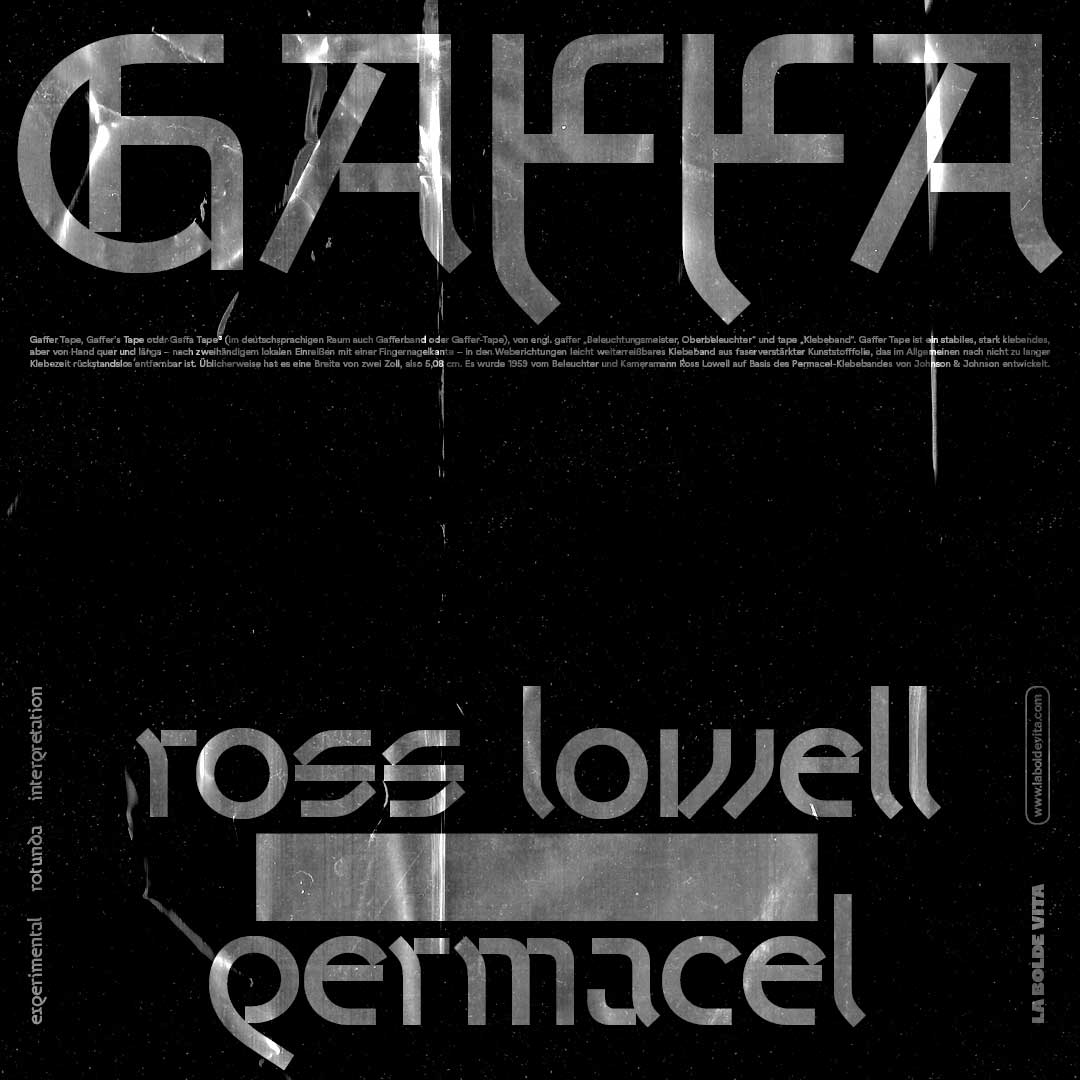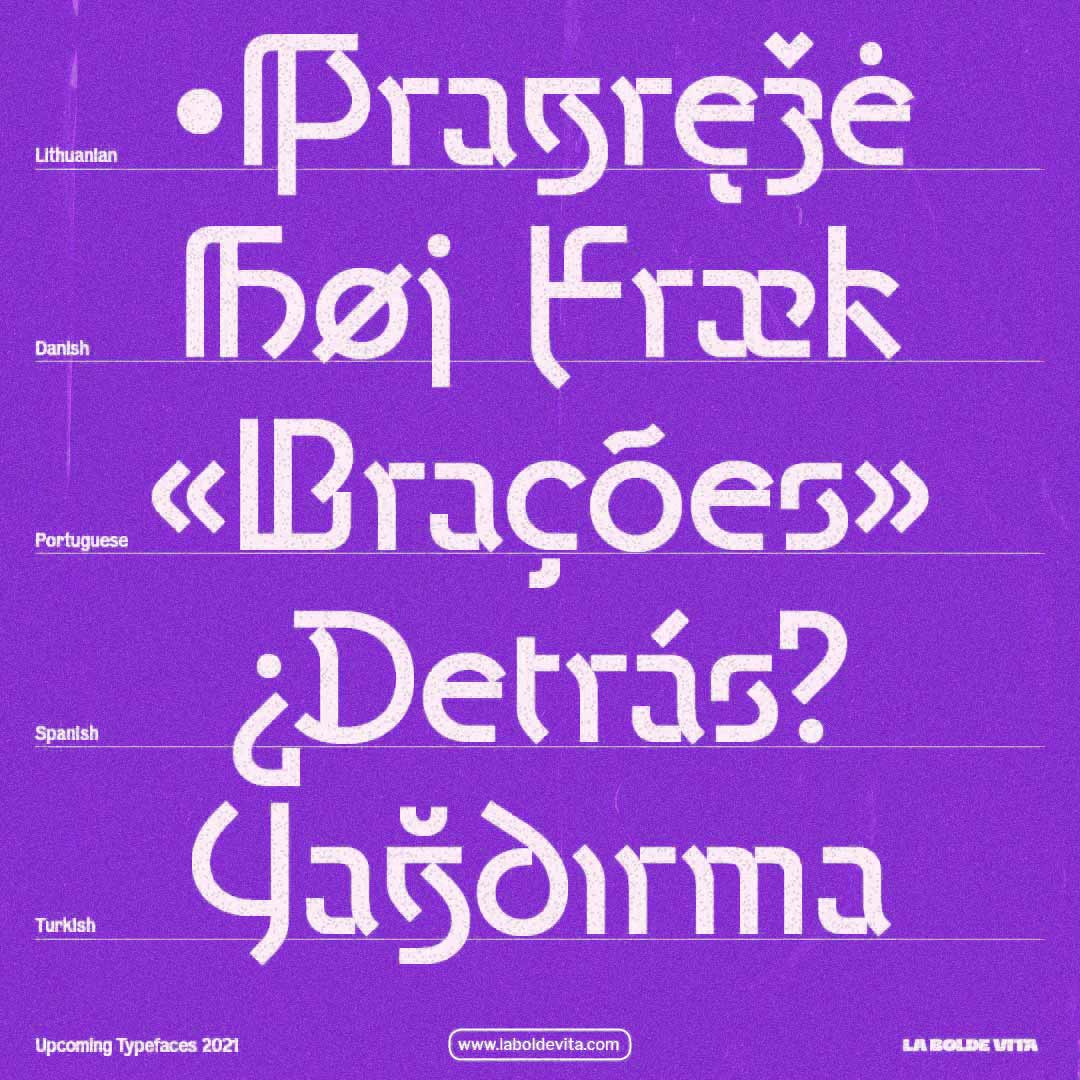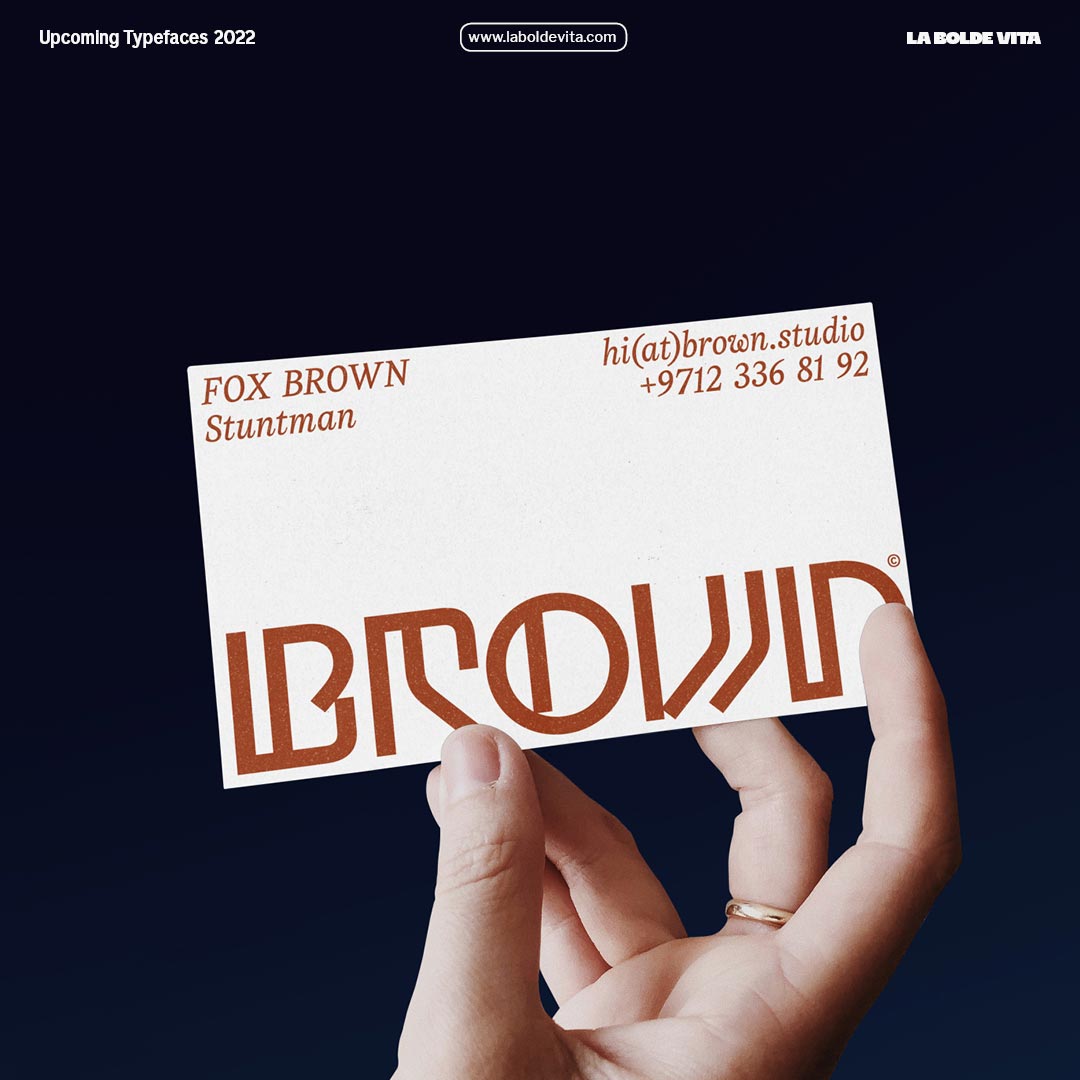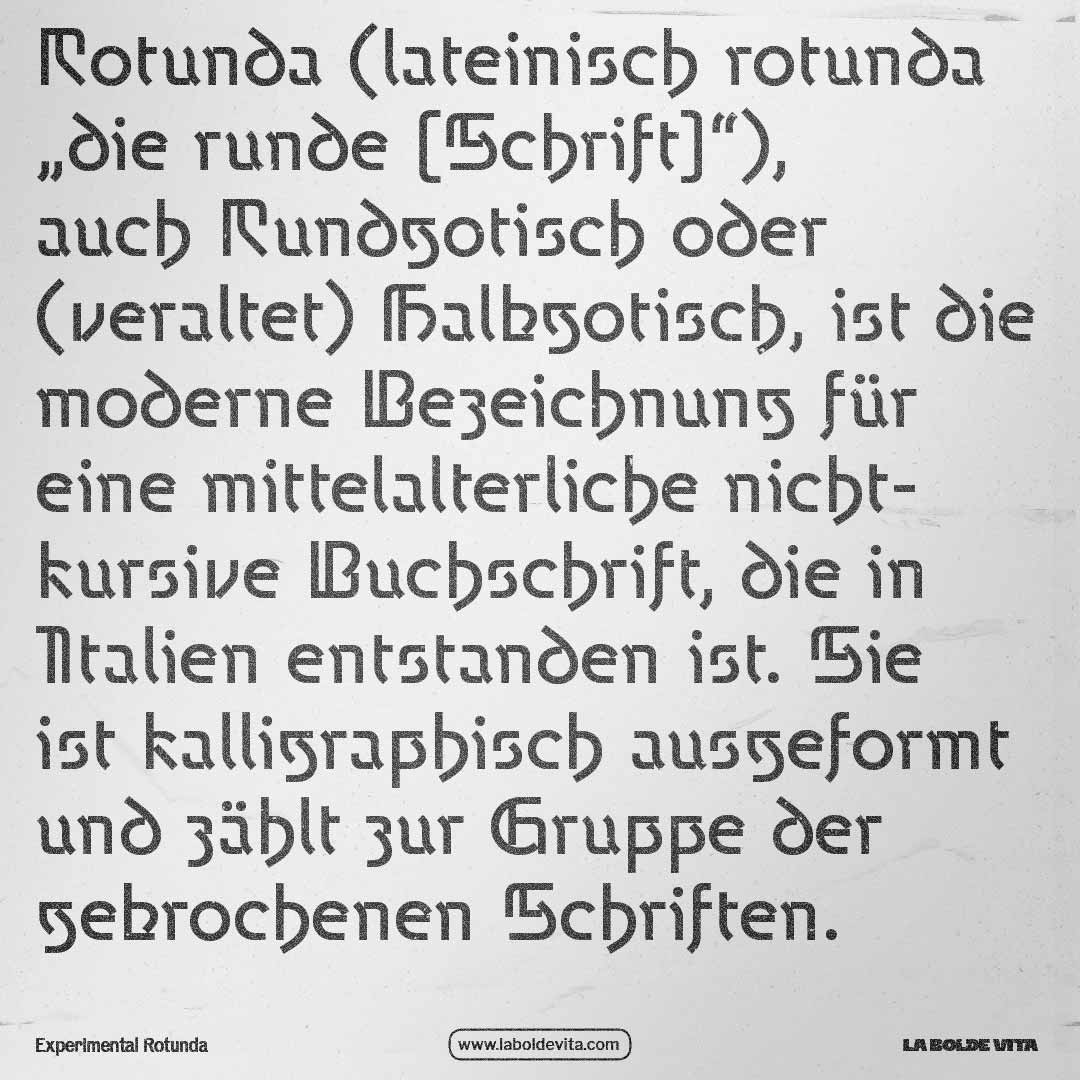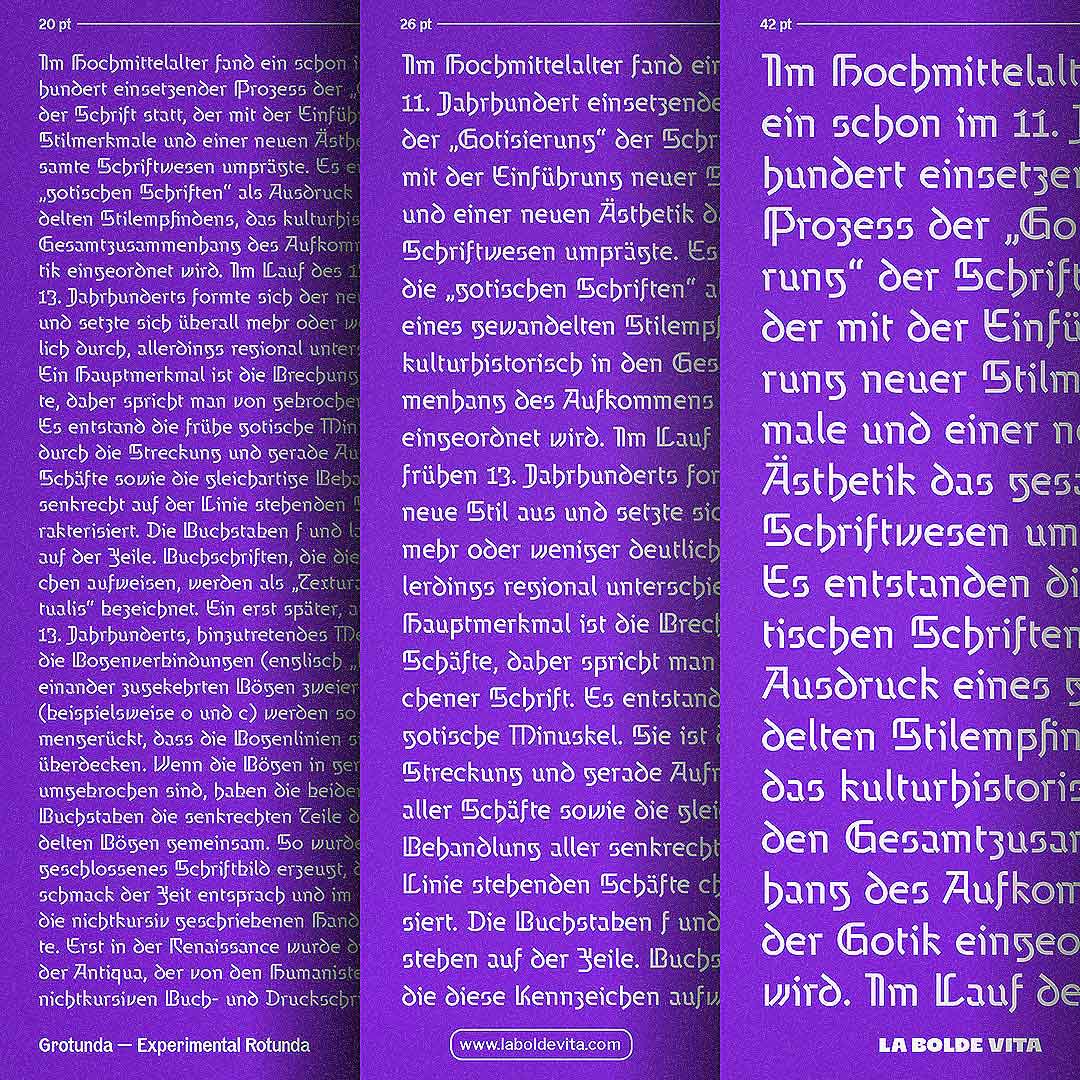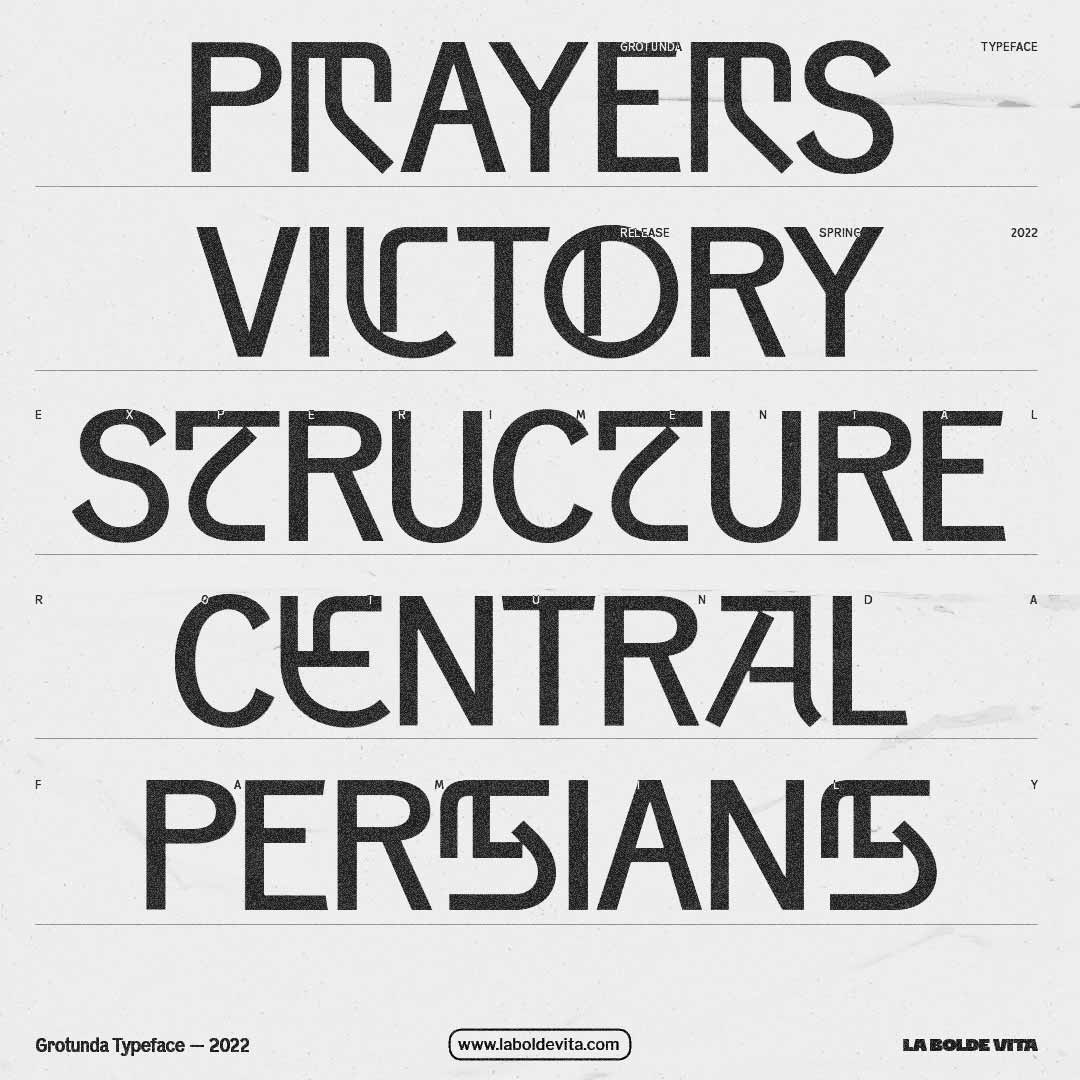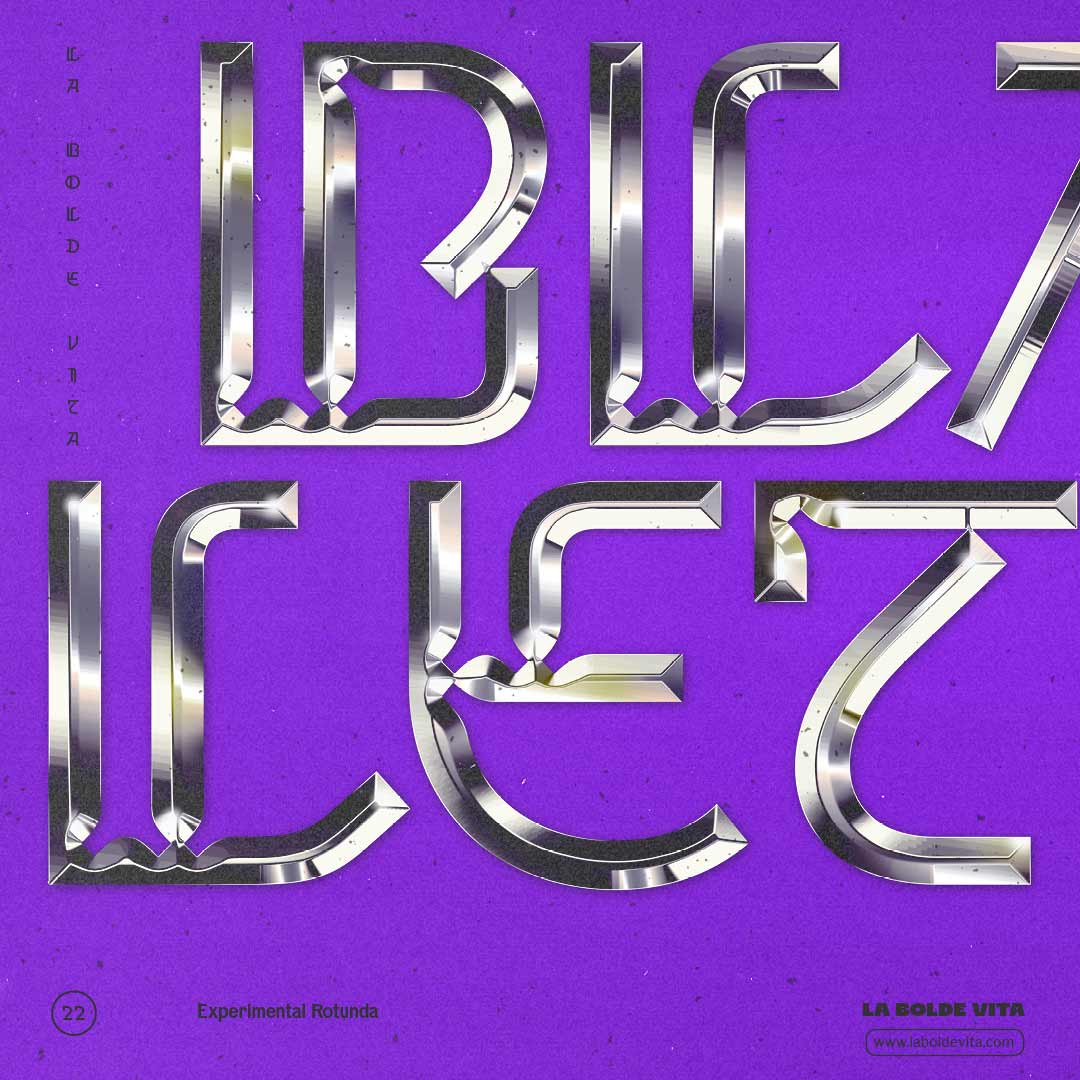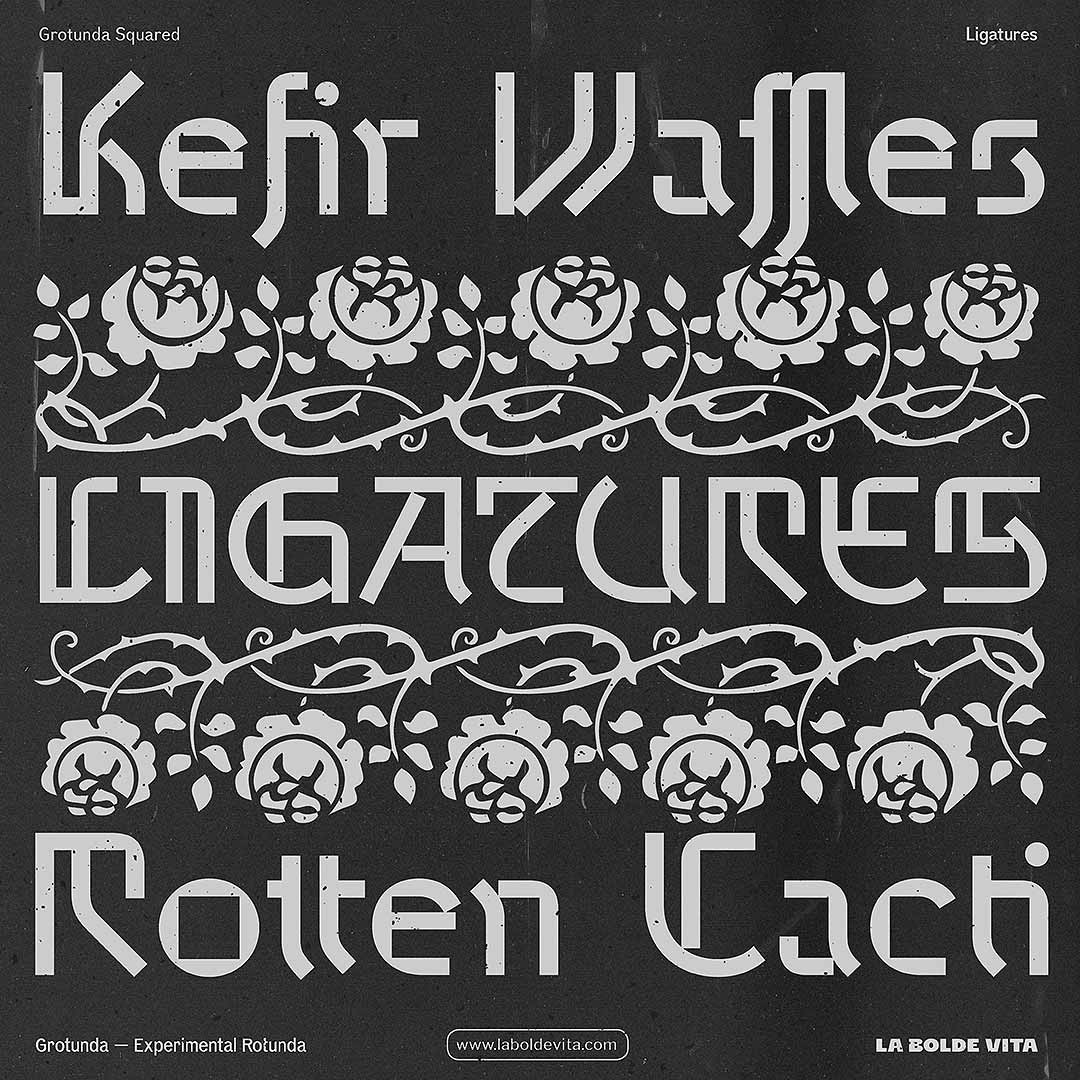
The Grotunda family is a modern take on the classic Rotunda style. Characteristic shapes (such as the lowercase d) are taken up and rendered in a contemporary, reduced design language. Likewise, the family consists of only one weight, but comes in different styles with varying flairs – also based on modern styles.
Despite all the reduction, the calligraphic character resonates, not least through the decorated capital letters. These create a completely different texture than body copy and border on illegibility.
The typeface is therefore designed for classic display use: playful poster titles, eye-catching keywords, short quotes or experimental wordmarks. To fully serve this purpose, it offers the familiar support of languages, useful Open-Type features and an adaptable flair thanks to the different styles.
Experimental Rotunda Reinterpretation
Released in 2022
4 distinct styles
604 Glyphs
Grotunda
All styles of the Grotunda family come with handy and playful features — speaking of alternate letters, ligatures, case-sensitive forms and more.
Curvy alternates
Case sensitive forms
Circled numbers
Grotunda comes with 604 glyphs, covering the Latin Extended-A Unicode Range, descender-less alternates for tight headlines, ligatures and various styles of figures.
Thanks to the coverage of the Latin-Extended-A Unicode range, Grotunda supports most modern Latin languages. Actually, containing some additional accented glyphs, you can set text in 215 languages. If you still think your language isn’t supported, you can look up the full list below or in the specimen.